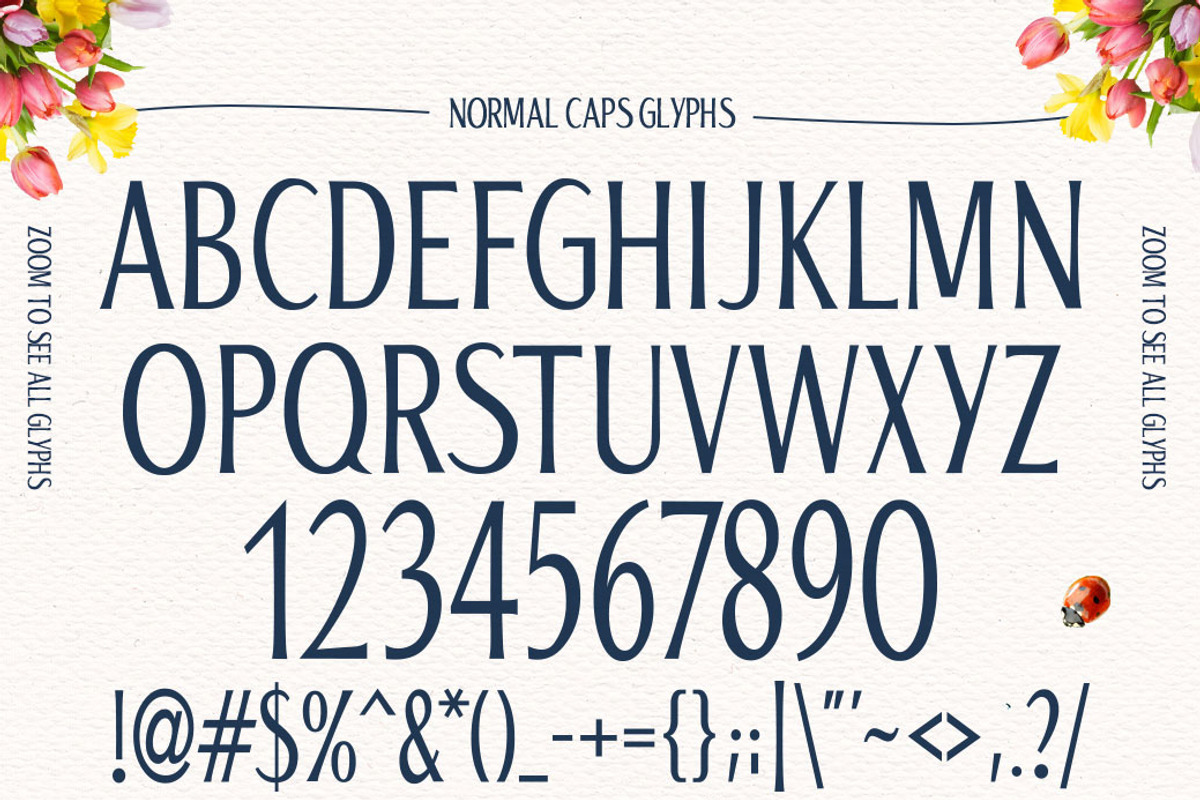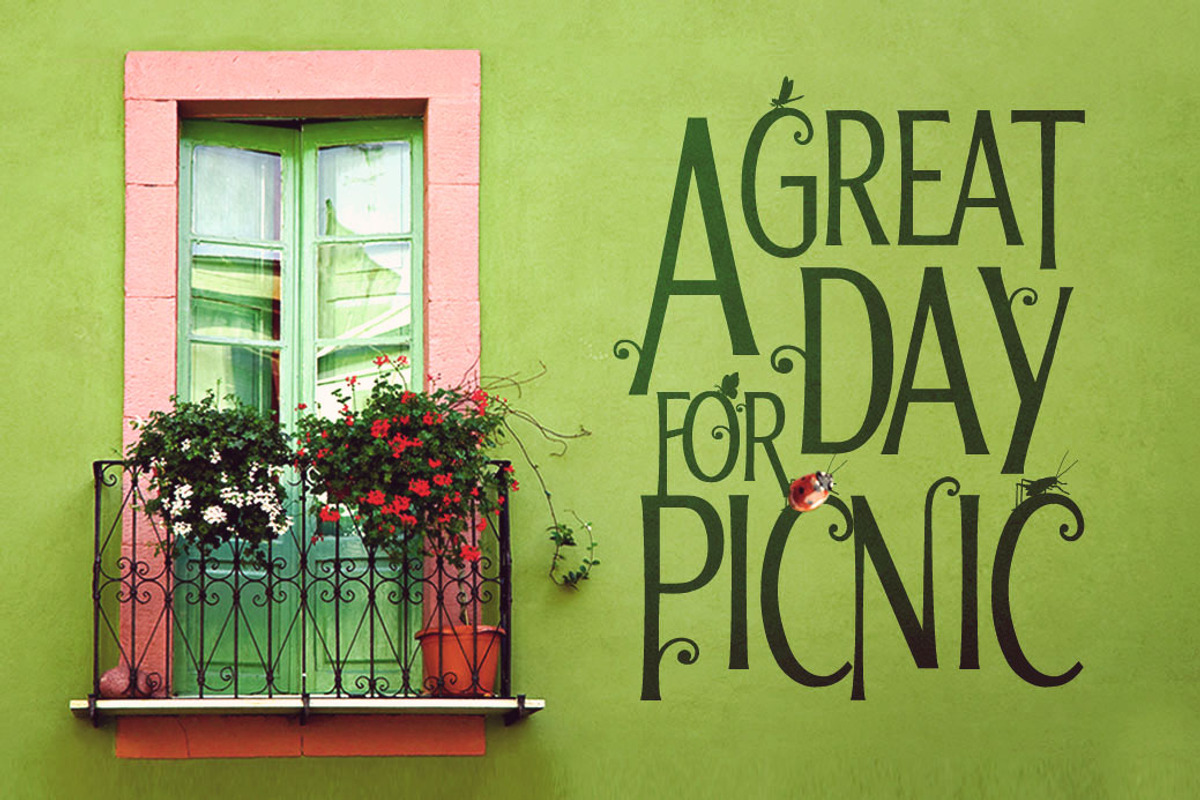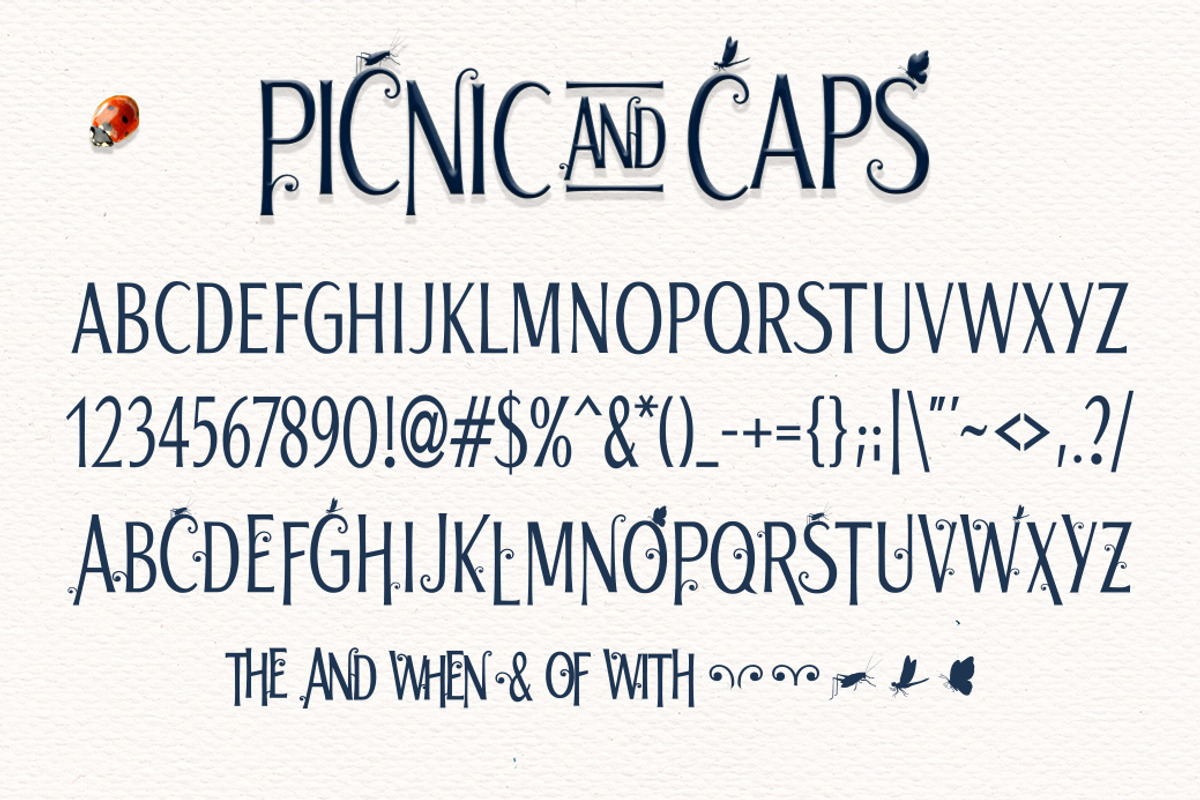
Picnic Caps Font
Picnic Caps Font by DesignSomething is a font selected for branding, posters, packaging, typography.
- This font contains only caps, alternate caps and decorative glyphs .
Why Picnic Caps Font is worth a look
Picnic Caps Font by DesignSomething fits naturally into Branding, posters, packaging, typography.